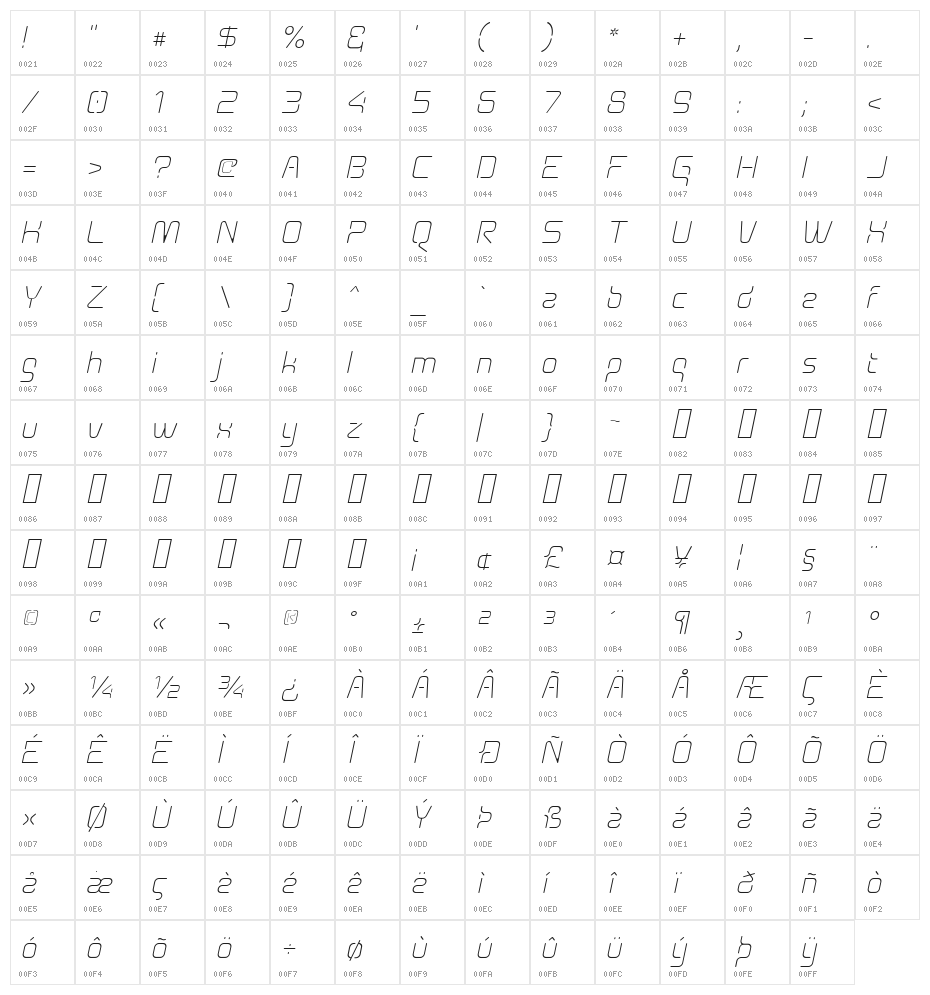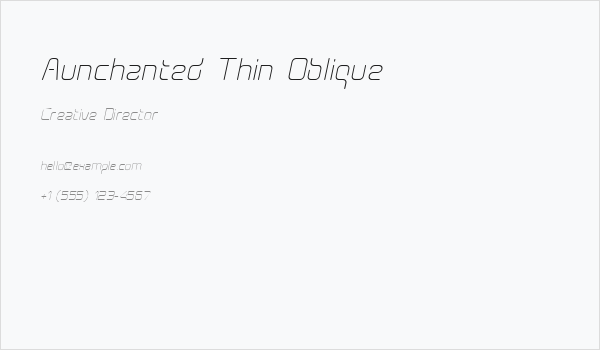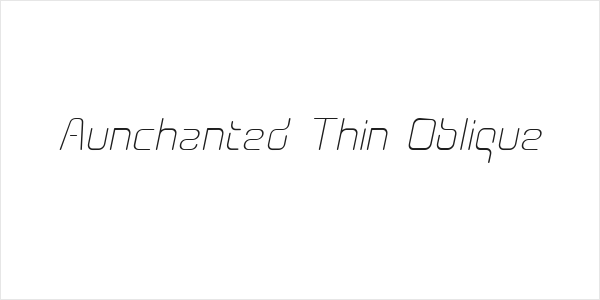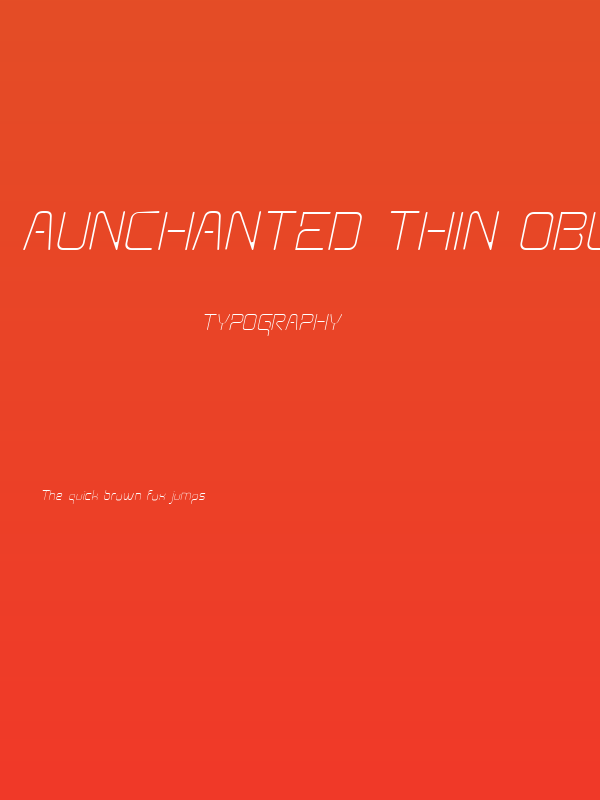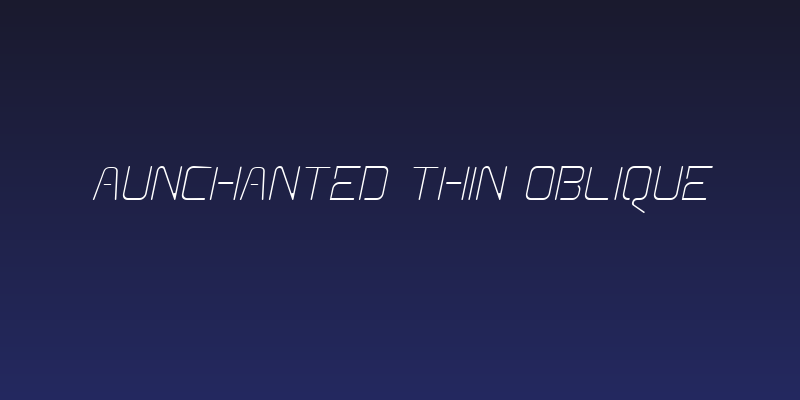
Aunchanted Thin Oblique Font
Aunchanted Thin Oblique Description
This font features a sleek, modern design with a thin, oblique style. The characters are elongated and slightly slanted, giving a sense of motion and fluidity. The uppercase and lowercase letters maintain a consistent width, contributing to a uniform appearance. The numerals and special characters are designed with the same thin lines, ensuring a cohesive look across all text. The overall aesthetic is futuristic and minimalistic, making it suitable for projects that require a clean and contemporary feel.
| Use Case | Headlines, Logos, Digital Interfaces |
| Proposed Projects | Ideal for tech branding, modern websites, digital interfaces, and futuristic-themed designs. |